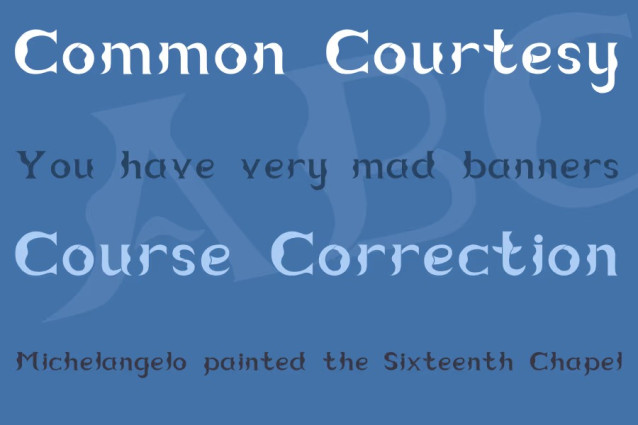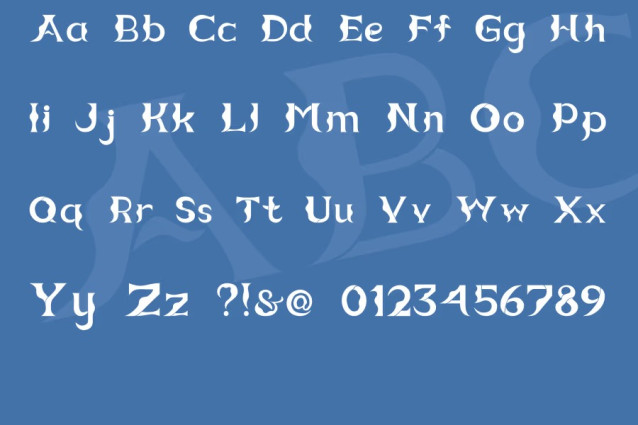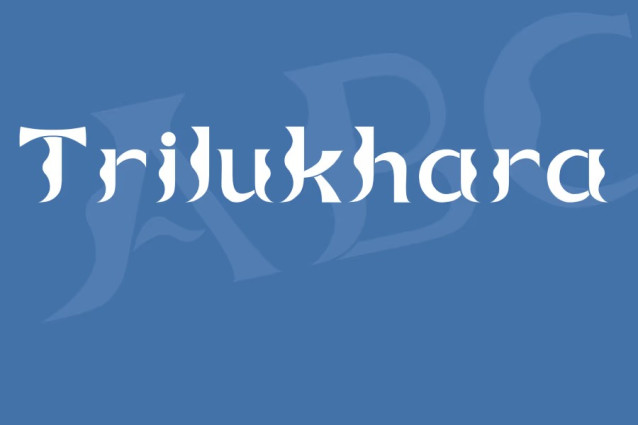
Trilukhara Font
Trilukhara Font is a font inspired by the Keris, a traditional Indonesian heritage weapon. Its charm and aesthetic qualities are reflected in the font through its distinctive shapes and stylistic details.
The name Trilukhara comes from three words: Tri (three), Luk (the curves found on a Keris), and Khara (character). This font symbolizes life’s journey, balance, and human purpose. These values are inspired by the philosophy of the three-luk Keris, which represents the relationship between humans and God.